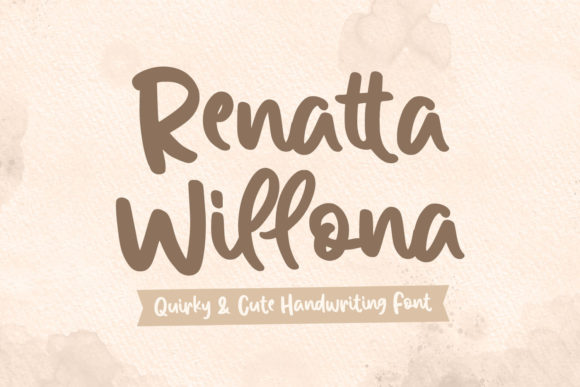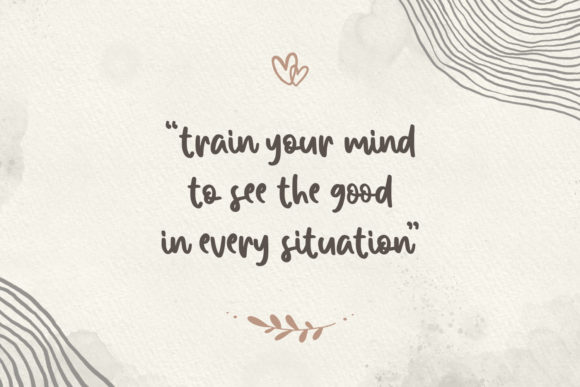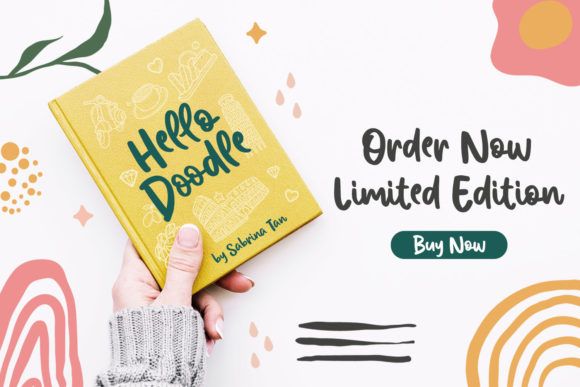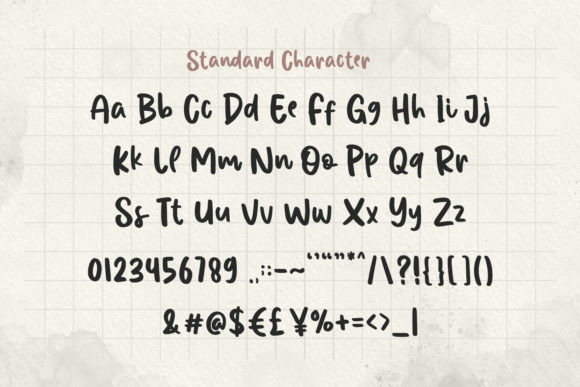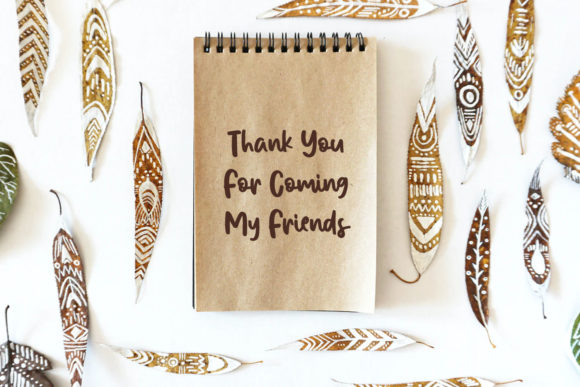
About Renatta Willona Font
Renatta Willona is a chic and flowing handwritten font. Whether you’re looking for fonts for Instagram or calligraphy scripts for DIY projects, this font will turn any creative idea into a true piece of art!